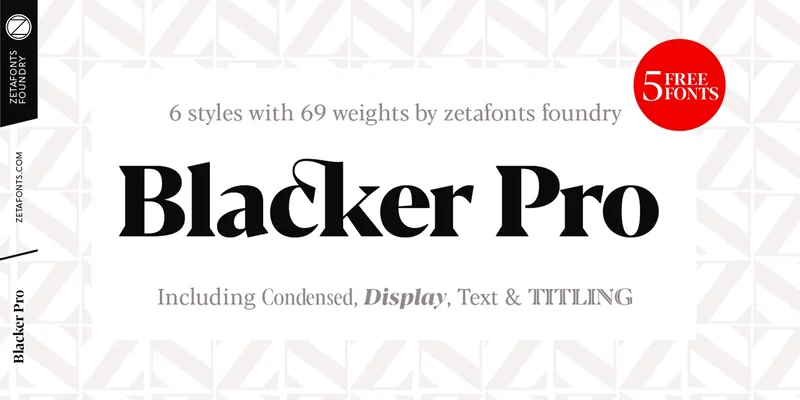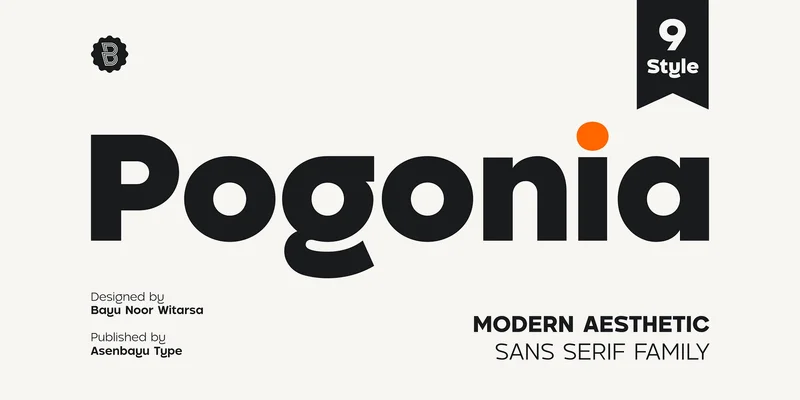
Pogonia is a modern aesthetic sans serif fonts with geometric and humanist structure, convey simplicity and versatility that are perfect for a variety of projects with timeless appeal.
Blacker Pro is the revised and extended version of the original wedge serif type family designed by Cosimo Lorenzo Pancini and Andrea Tartarelli in 2017